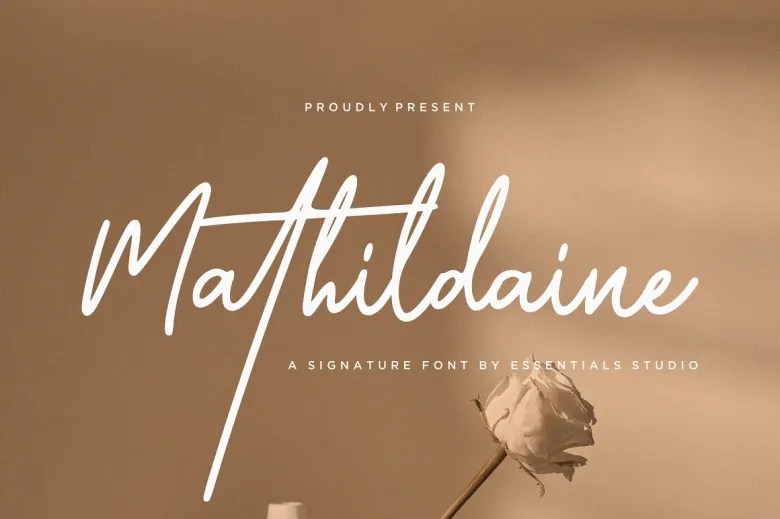
Mathildaine Font
Mathildaine by Essentials Studio is an exquisite script font that effortlessly blends elegance with distinctive character. This font is perfect for a wide range of design applications, whether you’re looking to create standout branding, beautifully designed packaging, or captivating magazine layouts.
Key Features and Design Attributes:
• Distinctive Script Design: Mathildaine is characterized by its fluid, graceful strokes, giving it a distinctive character that sets it apart from other script fonts. The carefully crafted letterforms bring a touch of sophistication and style to any project, making it a versatile choice for various design needs.
• Versatile Application: Whether you’re designing for branding, creating eye-catching packaging, or working on editorial projects like magazines, Mathildaine adapts seamlessly. Its elegant script style also makes it a perfect choice for wedding invitations, social media posts, or even just adding a touch of class to simple background text.
• Elegance for Special Occasions: Mathildaine’s refined and flowing design makes it particularly well-suited for special occasions. Whether you’re working on wedding stationery or elegant event invitations, this font will enhance the beauty and sophistication of your designs.
Ideal Uses:
• Branding: Mathildaine is an excellent choice for creating a memorable brand identity. Its elegant script can convey a sense of luxury and refinement, making it ideal for high-end brands or any business looking to project an image of quality and sophistication.
• Packaging: The unique character of Mathildaine makes it perfect for product packaging, adding a personal and luxurious touch that can make your products stand out on the shelves.
• Social Media and Magazines: For designers working on digital platforms, Mathildaine provides a stylish option for social media graphics and magazine layouts. Its elegant curves and flowing script make it ideal for adding a touch of elegance to posts, covers, and articles.
• Wedding and Special Event Designs: Mathildaine shines in the realm of wedding invitations, save-the-date cards, and other special event designs. Its romantic and sophisticated look makes it the perfect font to celebrate life’s most important moments.